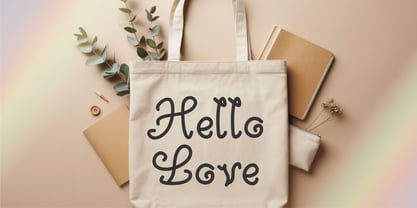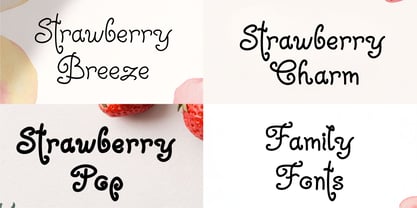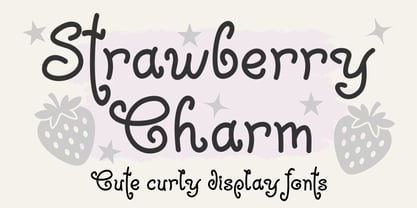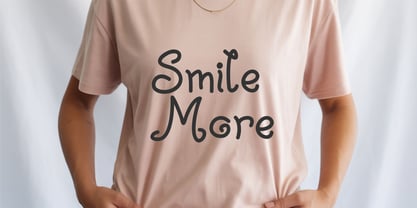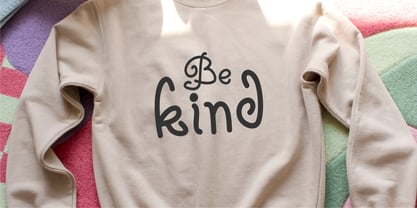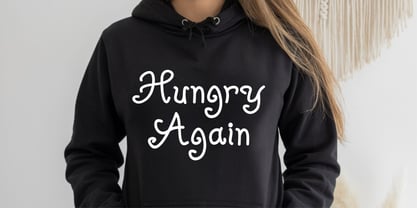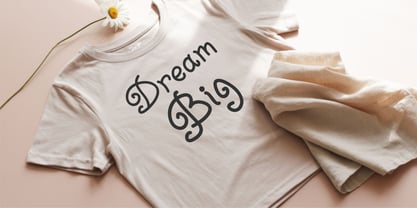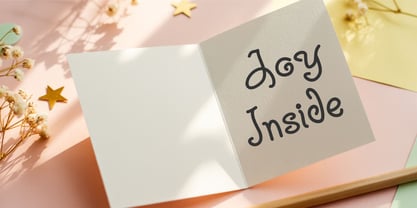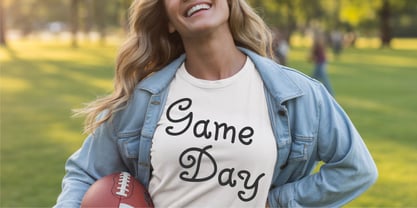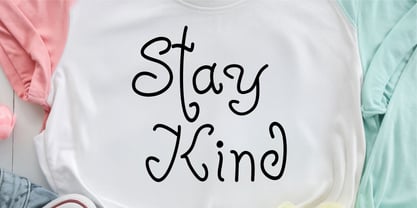
Strawberry Charm
by Tonis Art Studio
The Strawberry Charm Font Family was designed by Tony Balios and published by Tonis Art Studio. Strawberry Charm contains 3 styles and family package options. More about this family
Strawberry Charm is a playful curly typeface family designed to bring warmth and a joyful handwritten touch to creative typography. The family includes three styles — Regular, Bold, and Lite — each featuring soft rounded curves, gentle swirls, and a friendly letter structure inspired by whimsical lettering. Its smooth outlines and balanced shapes create an inviting aesthetic suitable for both display and casual text settings. The Regular style delivers a sweet and expressive handwritten look, the Bold style adds extra presence and visual impact, and the Lite style offers a softer, airy feel. Together, they form a versatile family ideal for headlines, packaging, posters, greeting cards, children’s materials, lifestyle branding, and decorative lettering. Strawberry Charm supports standard Latin characters, punctuation, and numbers. Each style is designed for clear readability at both small and large sizes, with clean contours optimized for print and digital environments. This typeface family is perfect for designers seeking a cheerful, uplifting, and modern handwritten display font with a playful curly personality.
Designers: Tony Balios
Foundry: Tonis Art Studio